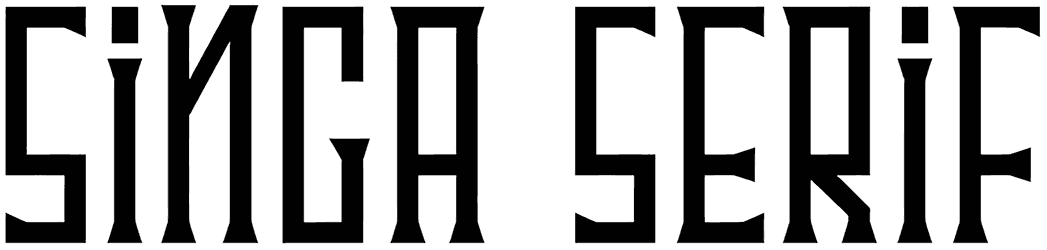
Singa Serif Font
Some contents require a strong and established feel, with them like athletes’ clothes, sports teams’ logos, match flyers, and sports games. These are the situations where you can use a varsity font like Singa Serif. This English font, with its hard and straight look, makes a stand.